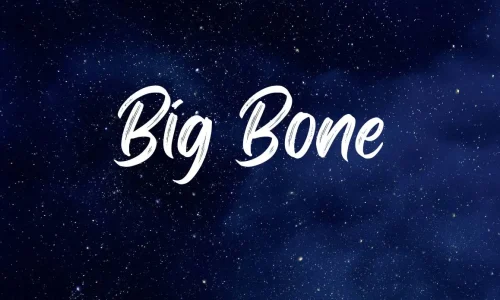
Frutilla font is from the script typeface family. Its designer is Ian Mikraz and its releasing year was 2017. Ian Mikraz is a very famous Type and Graphic designer and this typeface is one of the famous typefaces from its designed typefaces. This font has a very stylish and unique design. It is the perfect font for calligraphy and creative projects.
This font has 86 alternate characters and 277 glyphs. It contains uppercase letters, lowercase letters, numbers, symbols, and special characters.
Frutilla Font Family
| Name | Frutilla Font |
| Designer | Ian Mikraz |